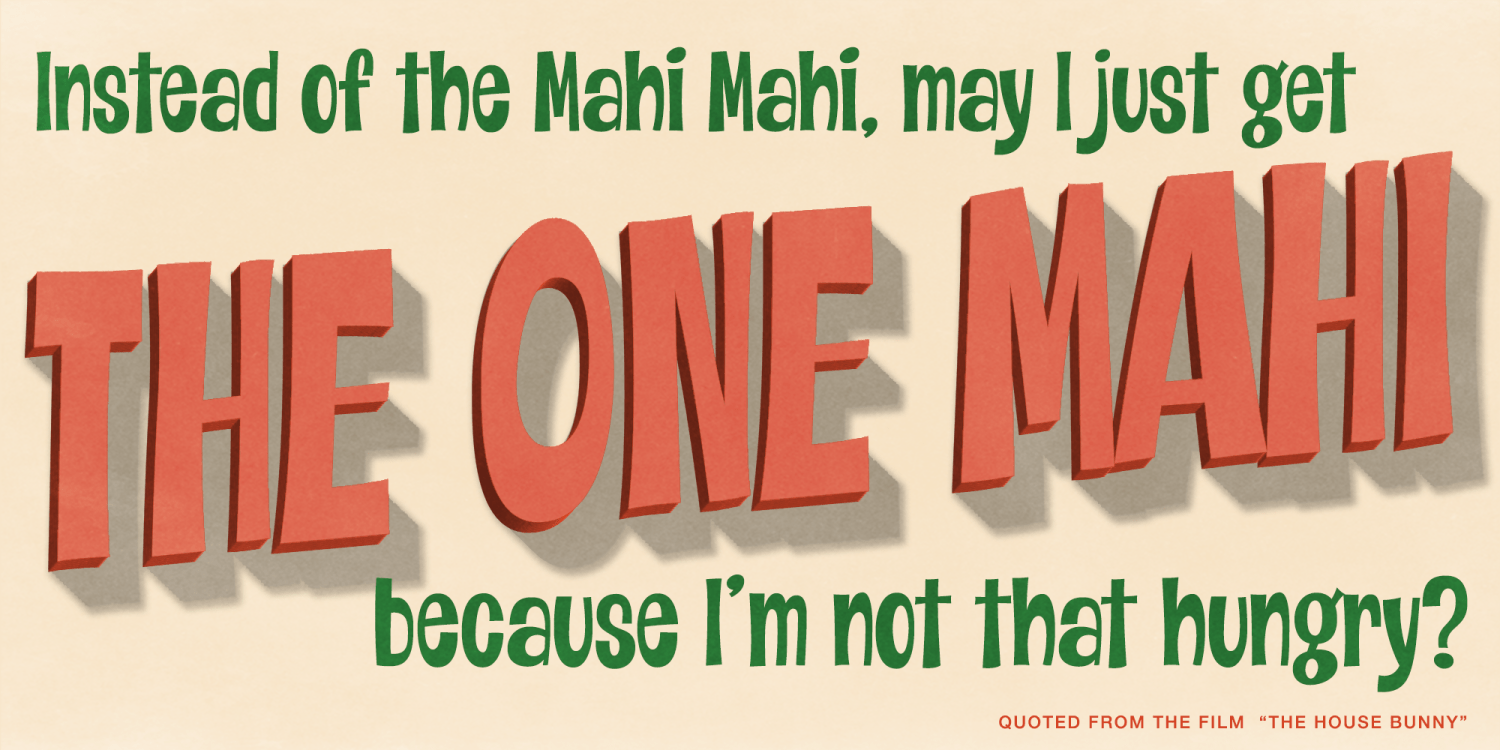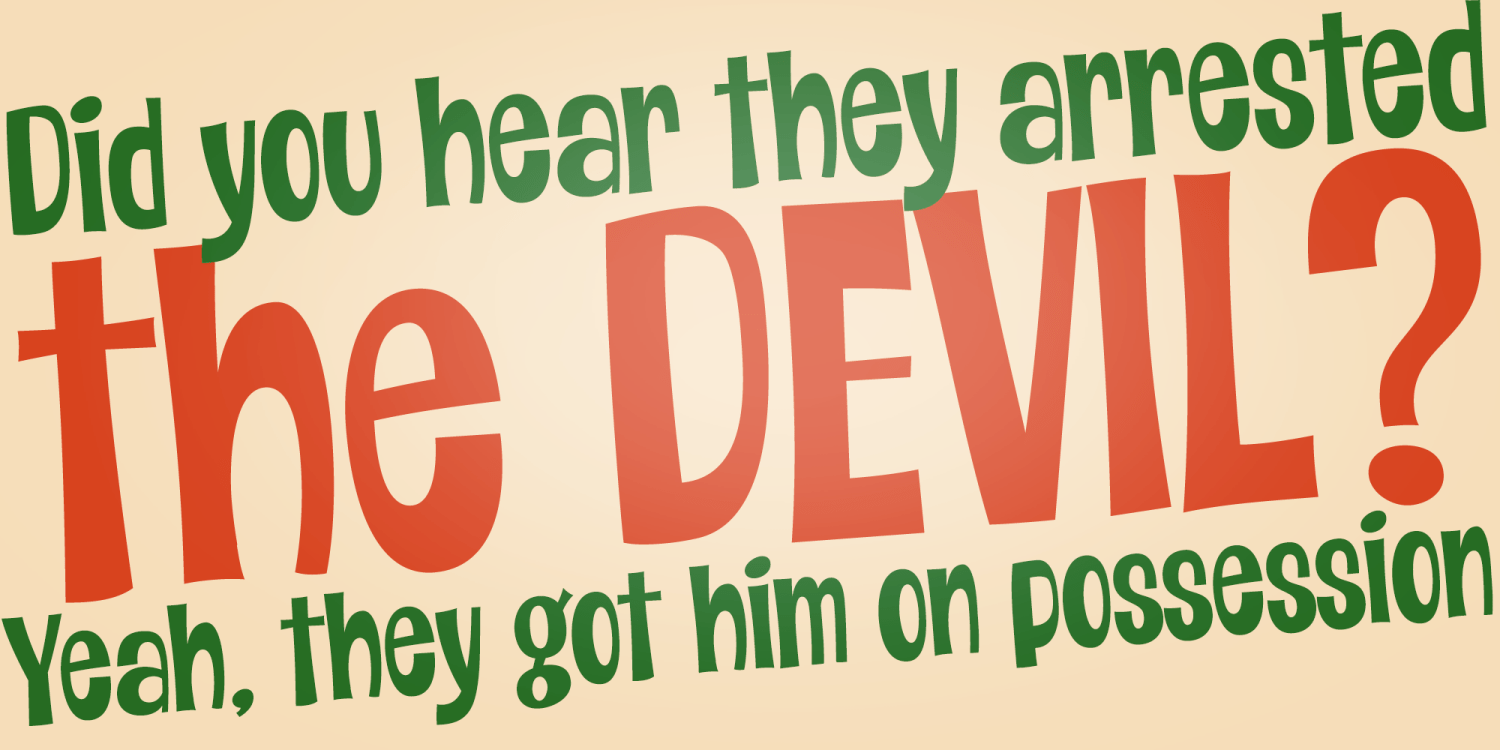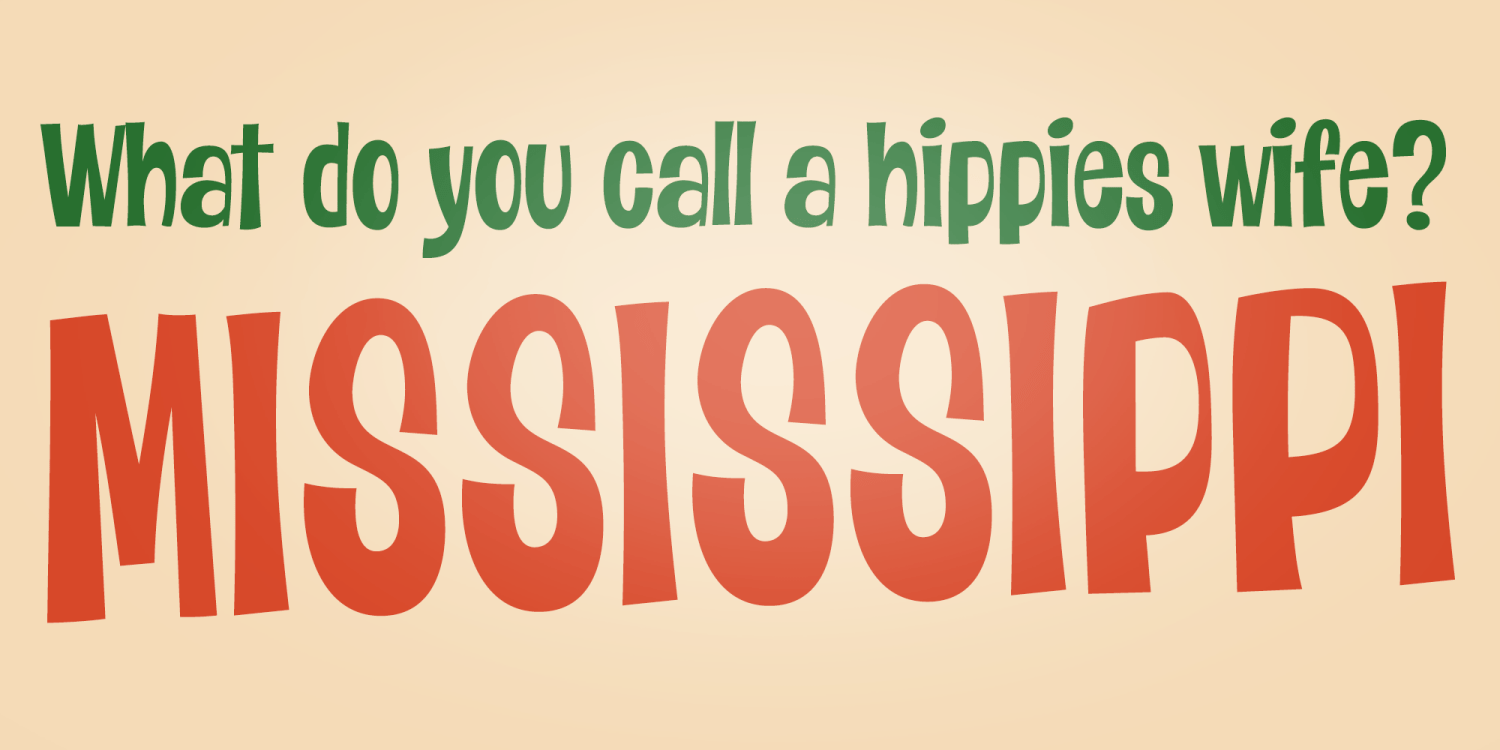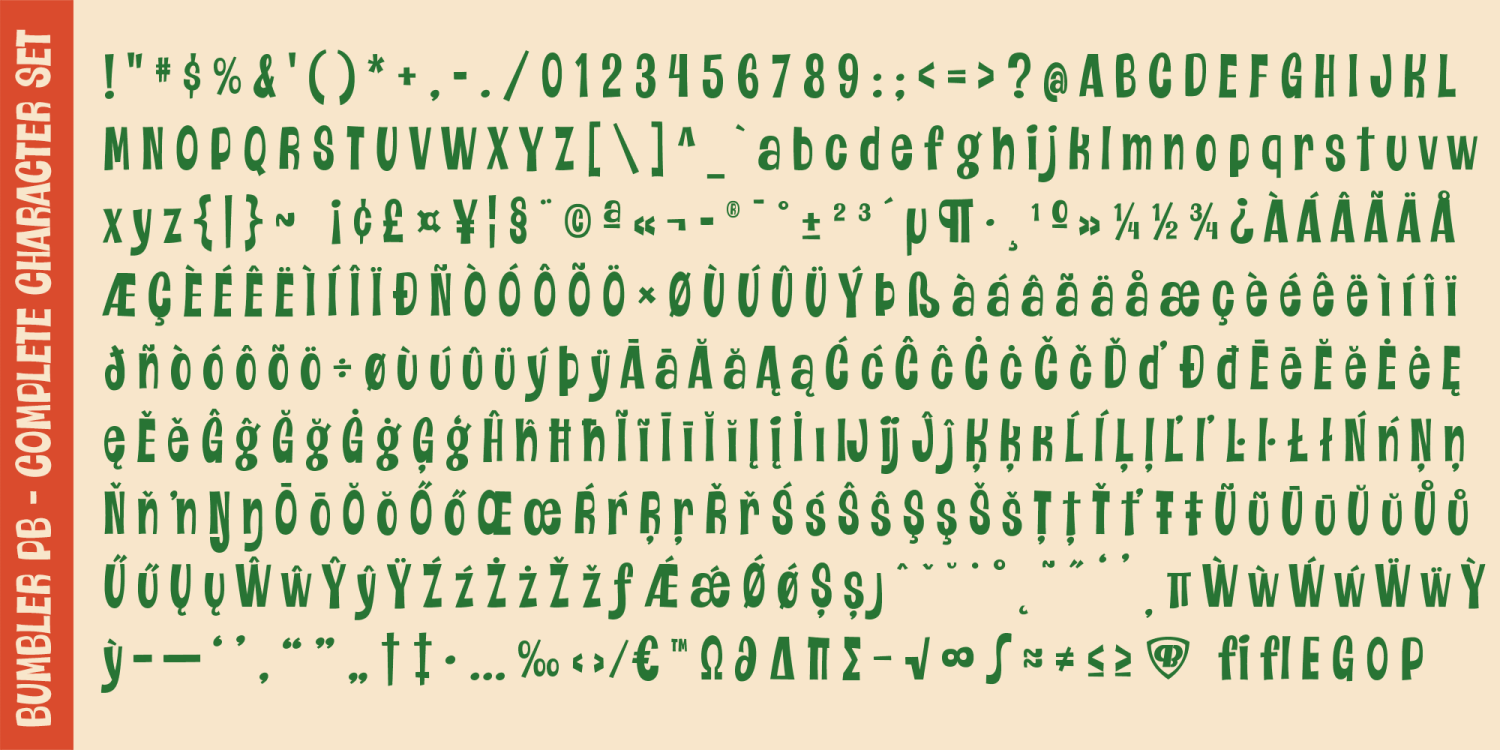
About Bumbler PB
Bumbler PB was inspired by the title lettering on Pepe Gotera y Otilio comics from the late 1960's. The lettering primarily capitals and had an odd shift in visual weight that made it lively and unexpected. This recreation of that lettering style…